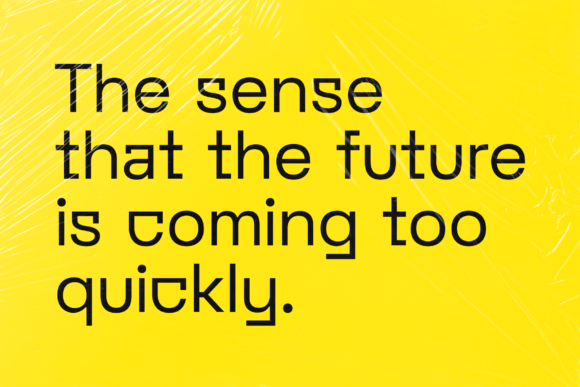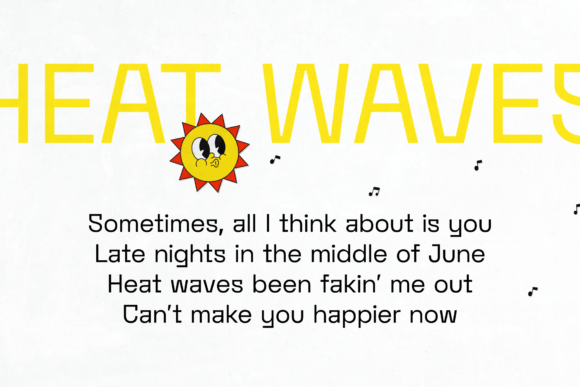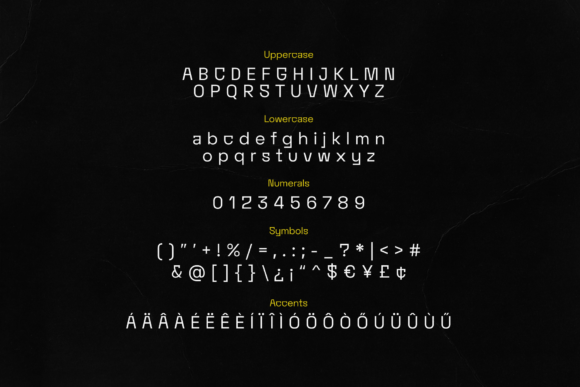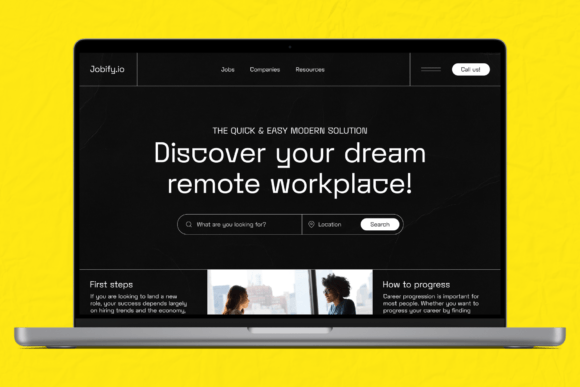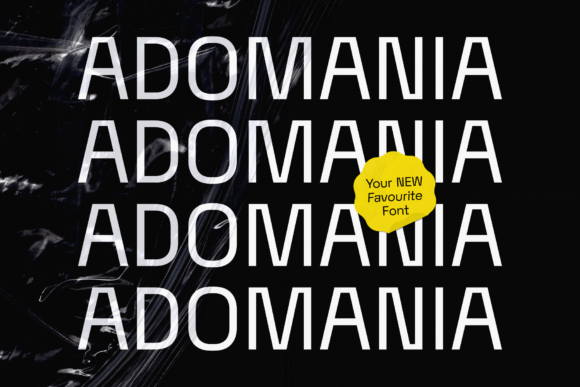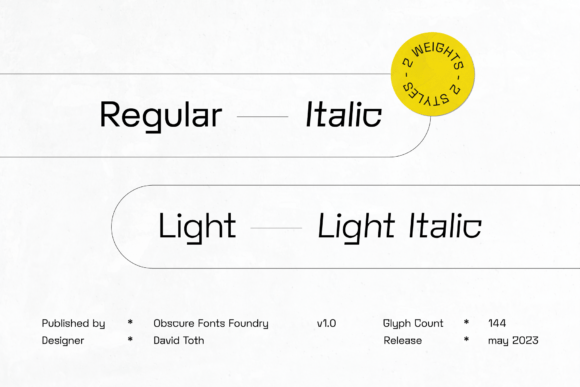
Introducing Adomania Font: The Perfect Blend of Professionalism and Creativity
In the world of typography, fonts play a crucial role in conveying the tone and personality of a brand. For designers and crafters, finding the right font can be a daunting task. However, if you’re looking for a font that combines professionalism with a touch of experimentation, look no further than Adomania Font. In this article, we’ll explore the features, benefits, and uses of Adomania Font, and why it’s an excellent choice for your next design project.
What is Adomania Font?
Adomania Font is an experimental, yet professional sans serif font designed to add a bit of spice to your typography. It comes in 2 weights and 2 styles, offering versatility and flexibility for various design applications. The font also includes a wide range of symbols and accents, ensuring accessibility and making it suitable for a broad range of projects.
Key Features of Adomania Font
- Experimental yet Professional: Adomania Font strikes the perfect balance between creativity and professionalism, making it ideal for designers who want to add a unique touch to their work.
- 2 Weights and 2 Styles: The font offers two weights and two styles, providing flexibility and allowing you to use it for various design applications, from headings to body text.
- Symbols and Accents: Adomania Font includes a wide range of symbols and accents, ensuring that your design is accessible and can be used for various languages and purposes.
- Clean and Professional: The font’s clean and professional design makes it perfect for branding projects, web design, logos, headings, and short-form editorial work.
The Meaning Behind Adomania
But what does “Adomania” actually mean? The term refers to the sense that the future is arriving ahead of schedule. In a world where design trends are constantly evolving, Adomania Font is the perfect choice for designers who want to stay ahead of the curve. With its unique blend of experimentation and professionalism, Adomania Font is poised to become a leading font in the world of typography.
Uses of Adomania Font
Adomania Font is an incredibly versatile font that can be used for a wide range of design applications, including:
- Branding Projects: Add a touch of creativity and professionalism to your brand’s typography with Adomania Font.
- Web Design: Use Adomania Font to create visually appealing and user-friendly websites that stand out from the crowd.
- Logos: Create unique and memorable logos that reflect your brand’s personality with Adomania Font.
- Headings and Short-form Editorial Work: Use Adomania Font to add a touch of sophistication and elegance to your headings and short-form editorial work.
Why Choose Adomania Font?
With so many fonts available, why choose Adomania Font? Here are just a few reasons:
- Unique and Creative: Adomania Font offers a unique blend of experimentation and professionalism, making it perfect for designers who want to stand out.
- Versatile: The font’s versatility makes it suitable for a wide range of design applications, from branding projects to web design.
- Accessible: Adomania Font includes a wide range of symbols and accents, ensuring that your design is accessible and can be used for various languages and purposes.
In conclusion, Adomania Font is an exceptional choice for designers and crafters looking for a font that combines professionalism with a touch of experimentation. With its unique features, versatility, and accessibility, Adomania Font is poised to become a leading font in the world of typography. Whether you’re working on a branding project, web design, or short-form editorial work, Adomania Font is the perfect choice for adding a bit of spice to your typography.